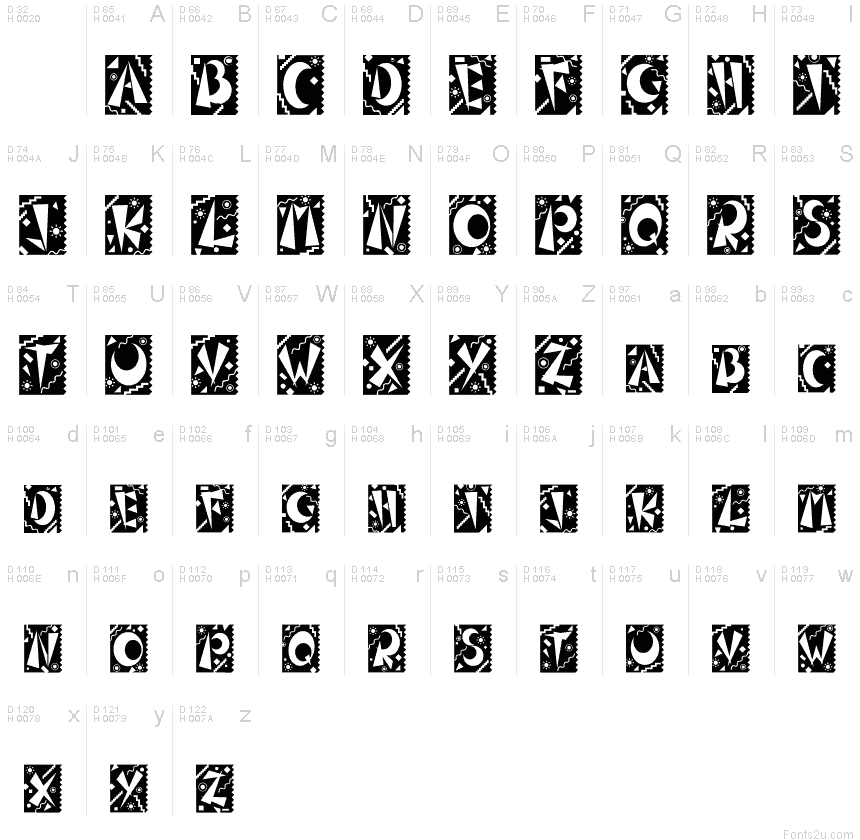
AlphaSkyParty by Miss Claude of Beeline is a free decorative caps font built from sharp, geometric letterforms. Tall triangular strokes and abrupt angles give the alphabet an Art Deco flavor. Stars, dots, zigzags, and small abstract shapes turn each letter into a dense miniature pattern.
Arts and entertainment designers can use it for posters, album covers, and event graphics. It also fits playful merchandise. In these settings, the patterned capitals can function as illustrated emblems rather than neutral text.